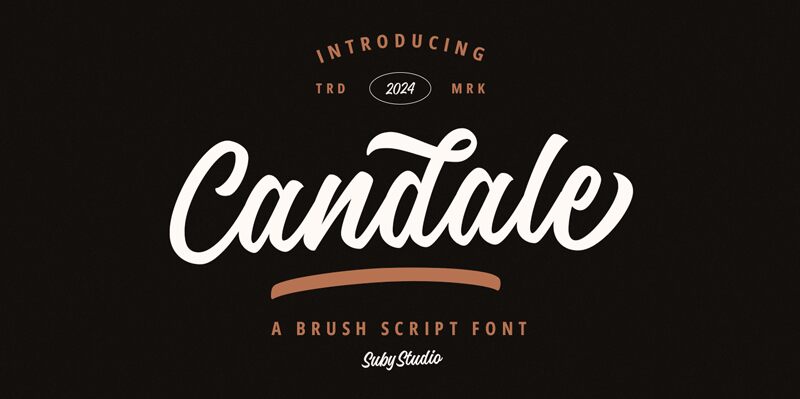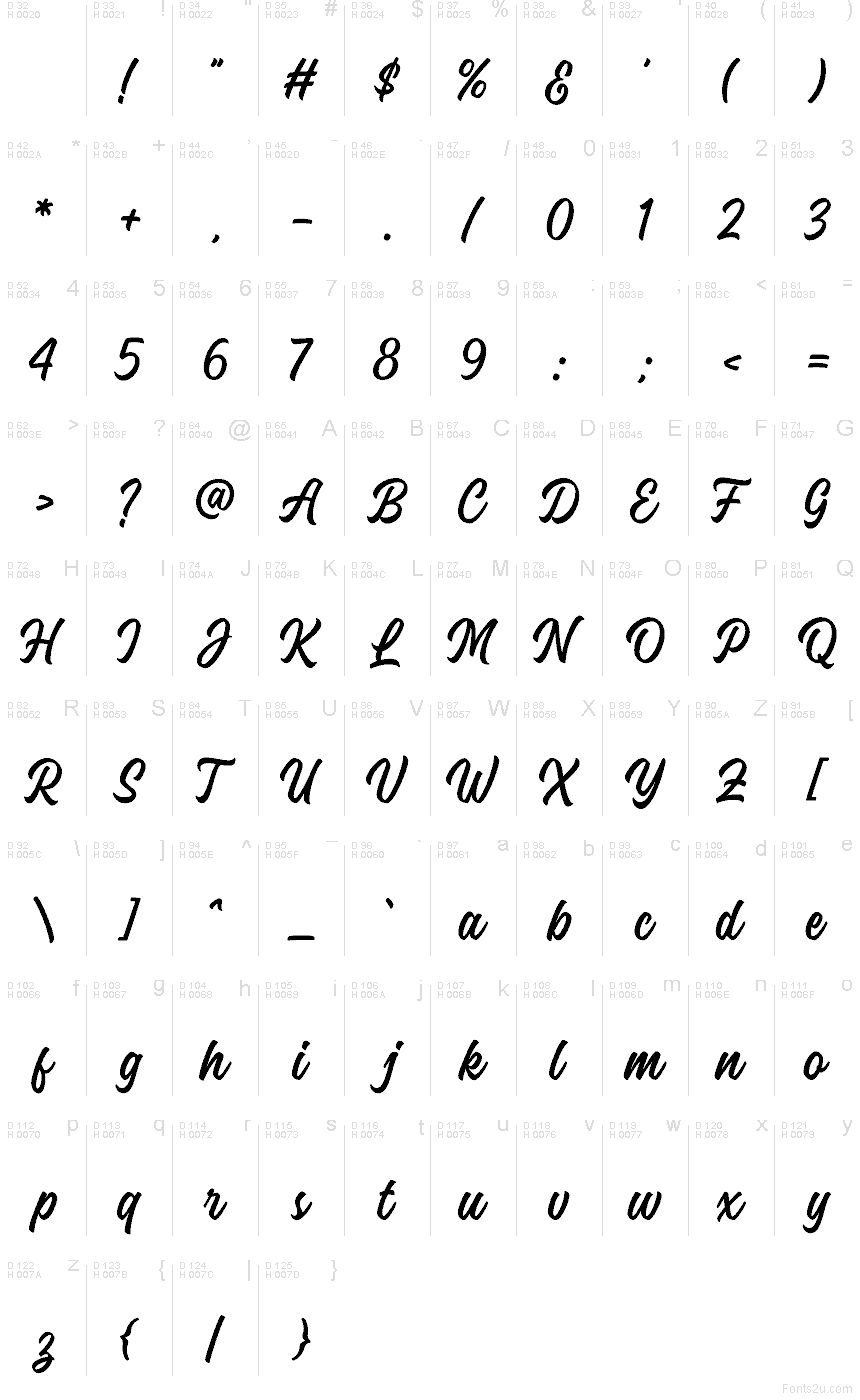
Candale from Suby Studio, is a free brush script with a smooth hand-painted swing. The letters lean into broad, flowing strokes and rounded joins, giving the font an easy rhythm that feels more like a confident signature than a formal calligraphy style.
It fits naturally in beauty branding, cafe menus, packaging, social posts, and event materials where a little movement helps the words carry the mood. As a free font, it also works well for short headlines, cover lines, and logo-style wording, since those long, looping shapes give even a brief phrase a sense of motion.